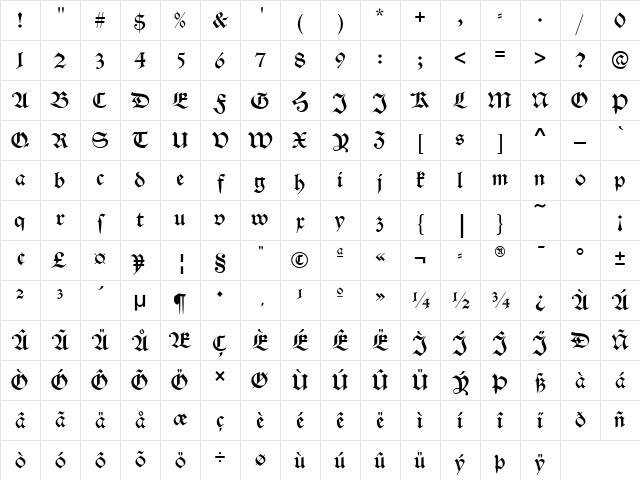
AlteSchwabacherEF Medium
Foundry: (c) Elsner+Flake
Design Context for AlteSchwabacherEF
AlteSchwabacherEF is a composed and adaptable typeface that performs quietly and consistently across a wide range of design contexts.
Who designed the AlteSchwabacherEF Medium font?
This font was published by (c) Elsner+Flake. Check the technical specs section for copyright and designer details.